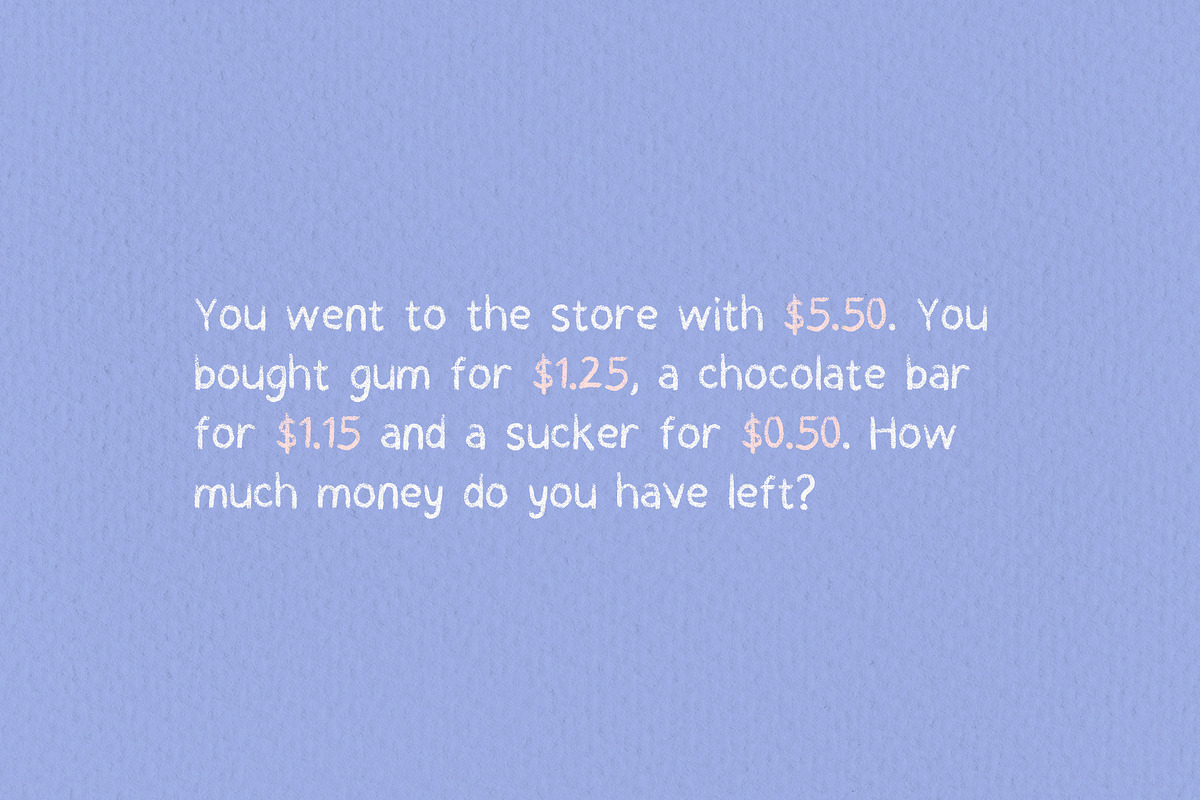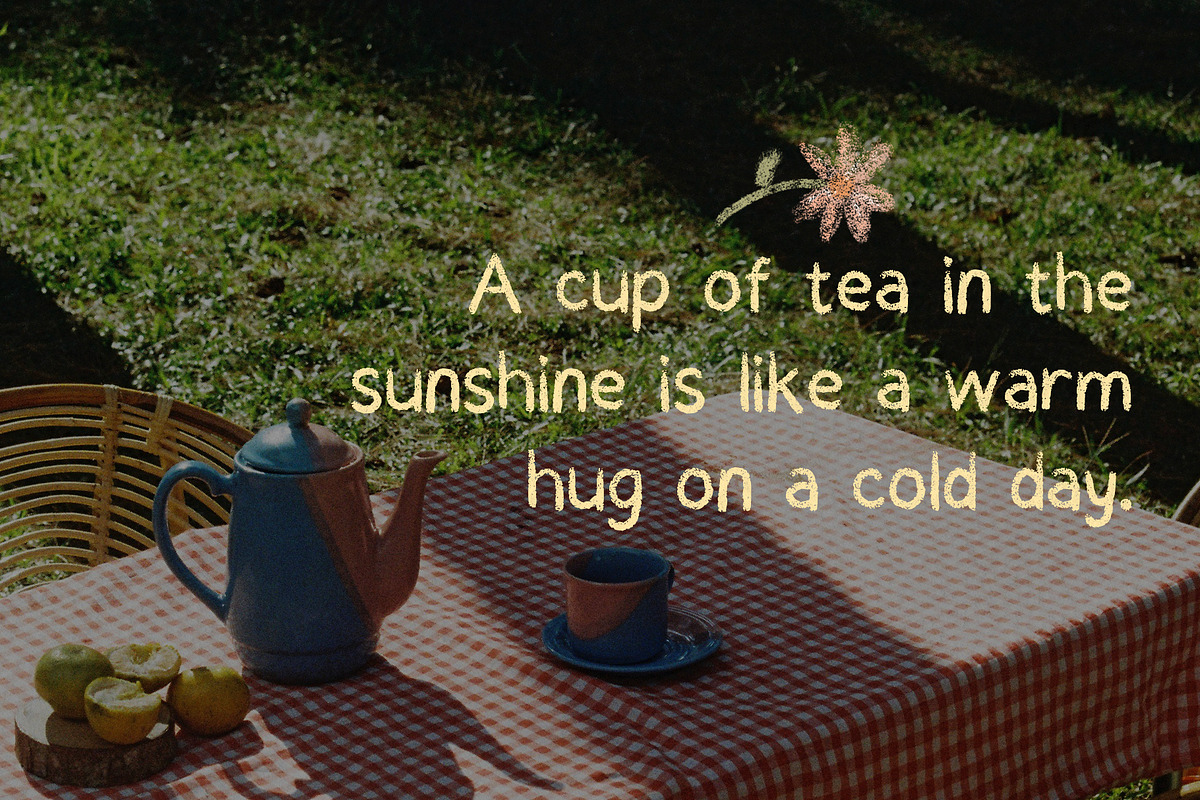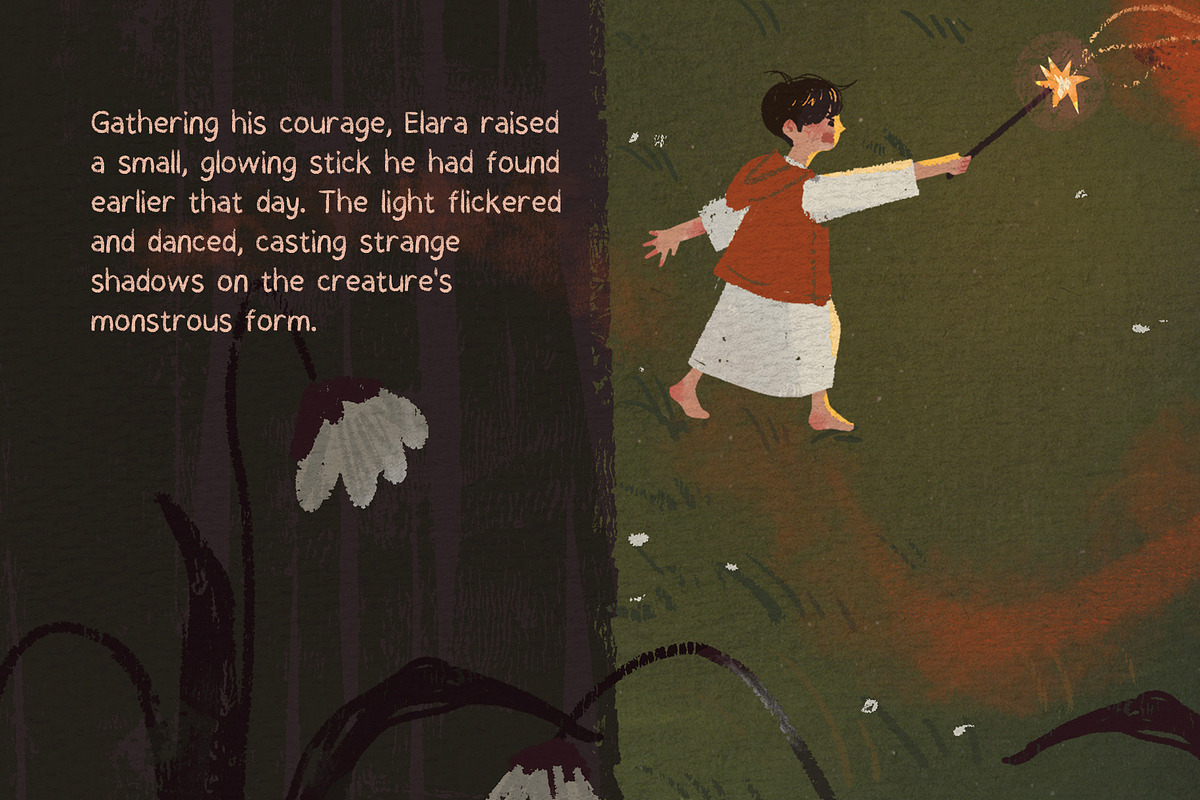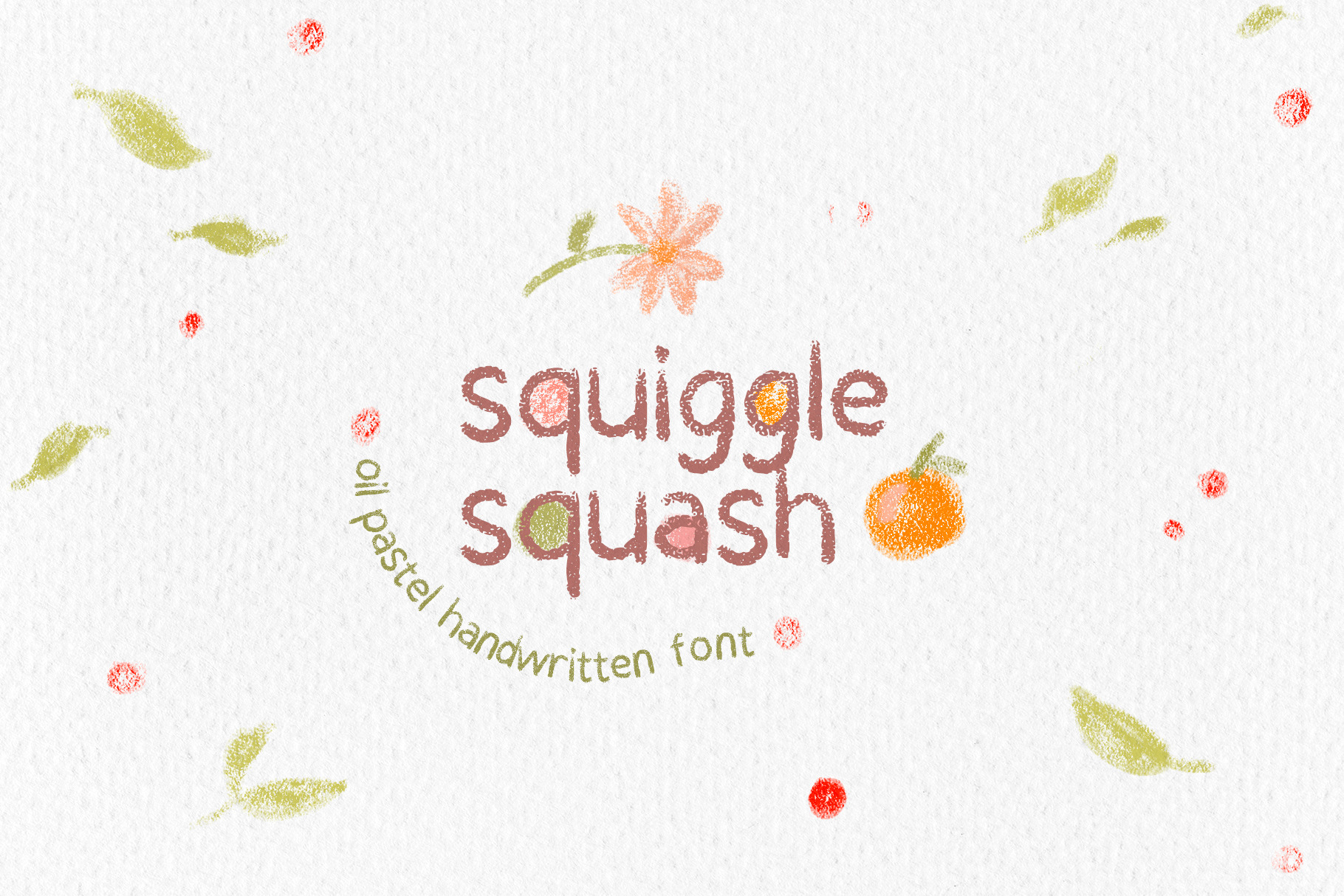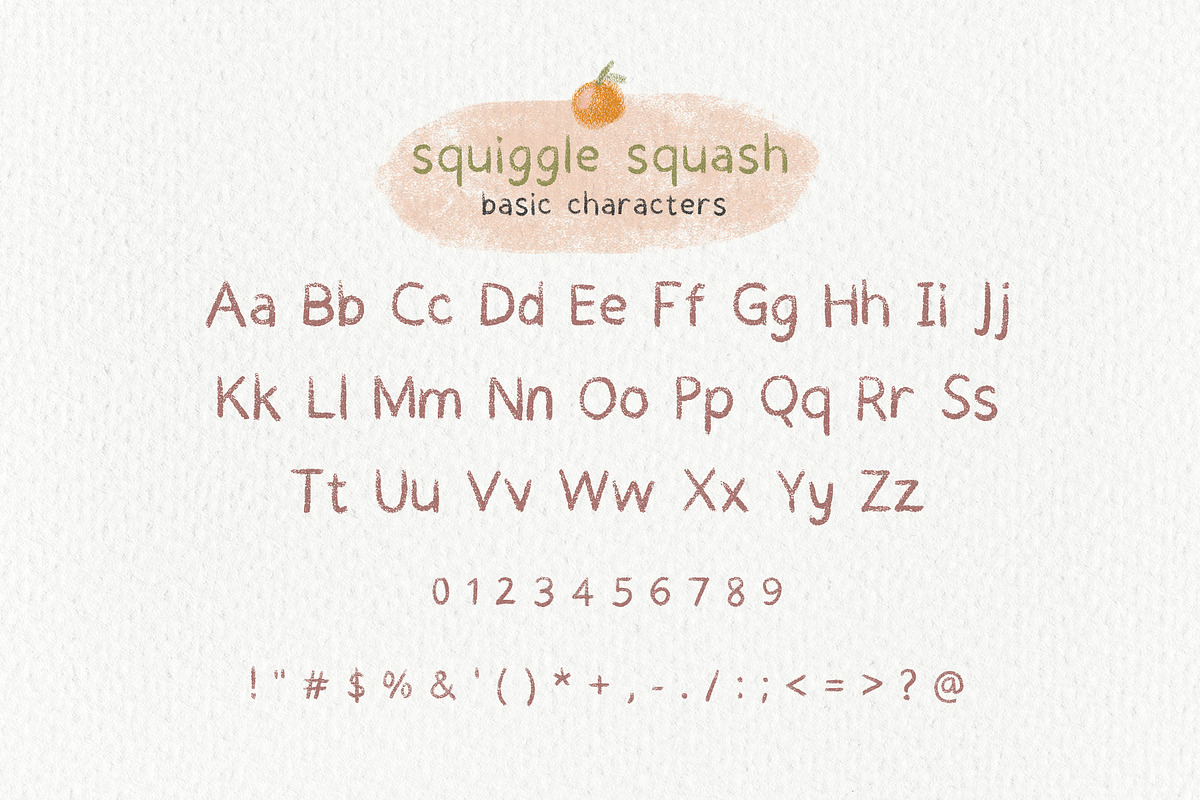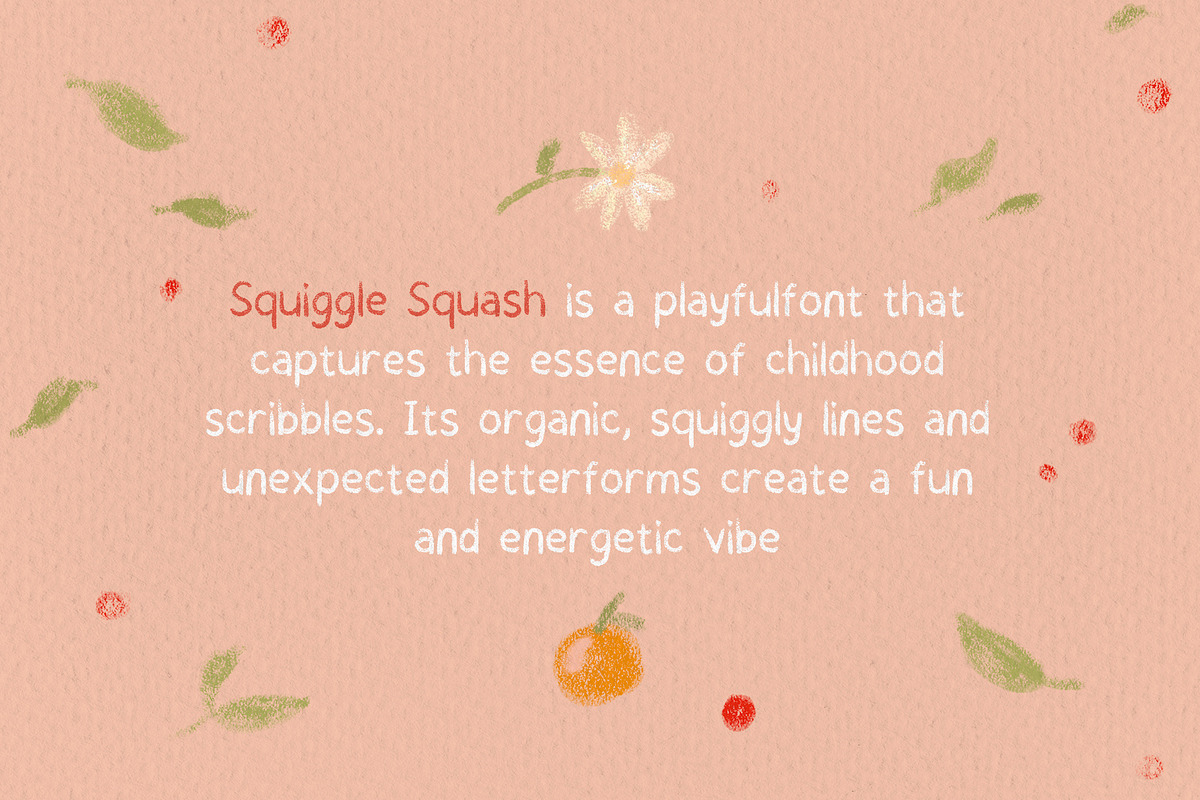
Squiggle Squash Oil Pastel Font
Squiggle Squash is an oil pastel handwritten playful font that captures the essence of childhood scribbles. Inspired by the joy of doodling and the carefree spirit of childhood, Squiggle Squash is perfect for projects that need a touch of fun and personality.
Squiggle Squash Font is packed with everything you need, including uppercase and lowercase letters, numbers, and punctuation. Consists of 246 glyphs.